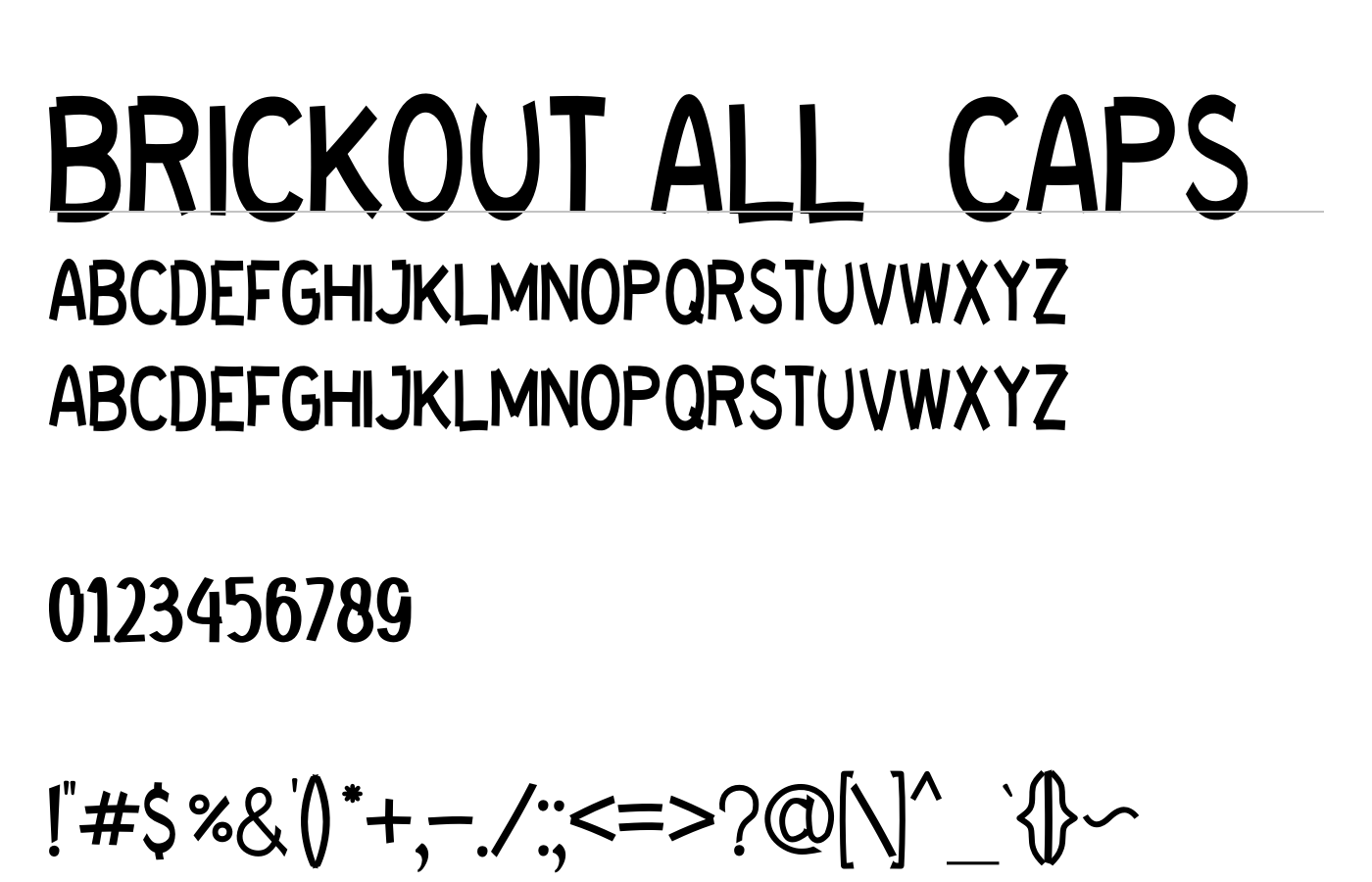
BrickOUT All Caps is a quirky, bold sans serif font with a playful, hand-drawn feel. Its uneven letterforms and varying stroke widths give it an energetic and informal personality, making it perfect for creative projects, fun branding, and casual headlines. This font shines in designs that want to convey friendliness and uniqueness while maintaining strong readability.
brickOUT all caps Font
About brickOUT all caps Font
| Font family | brickOUT all caps Font |
| Designer | Nur Khanifa Subkhi |